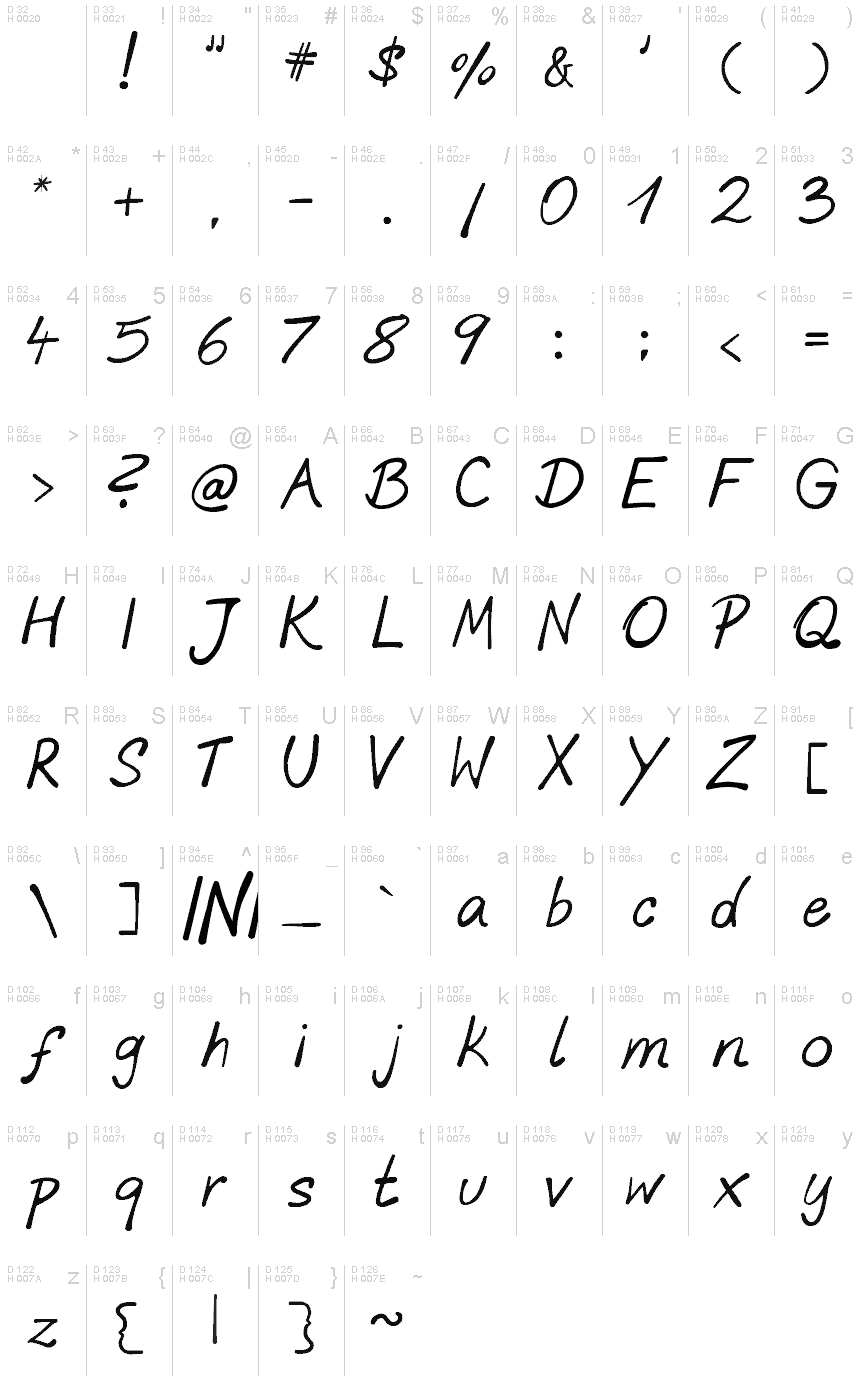
phitradesign INK
Phitradesign INK is a captivating handwritten font that exudes a distinct, artisanal charm. Designed by Shaped Fonts, this typeface boasts a fluid, organic line work that evokes a sense of authenticity and personalization. The irregular strokes and gentle variations lend a natural, hand-crafted aesthetic, perfect for projects seeking a touch of authenticity and character.
Phitradesign INK's versatility shines through, making it a suitable choice for a wide array of design applications, from branding and packaging to editorial layouts and event materials. Its emotive, expressive quality can elevate the visual impact of any project, adding a touch of warmth and individuality.
This is my second font, which I put a lot of effort into. However, I want this font to be free for private as well as commercial use. It contains over 200 characters with almost all special characters. It has a nice and realistic handwritten style, in an old-fashioned way.